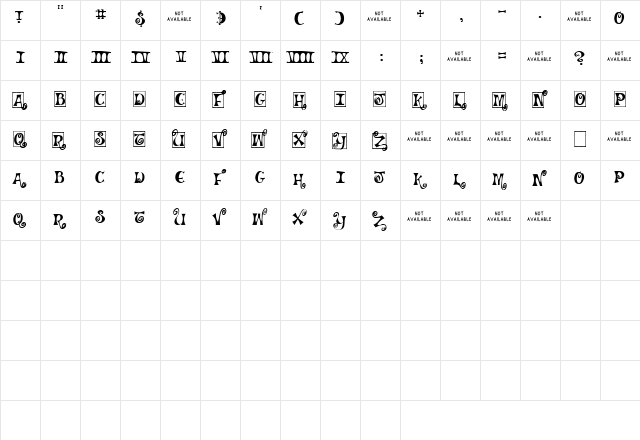
CK Monogram Regular Font Preview
CK Monogram Regular
Design Context for CK Monogram Typeface
CK Monogram uses fixed-width spacing throughout, giving it the structured, systematic character associated with coding environments and technical documentation.
A natural fit for code editors, technical documentation, developer-focused branding, and terminal-inspired UI.
Pro Tip: Pair CK Monogram with a proportional sans for UI contexts where code-style labels and regular body copy need to coexist.